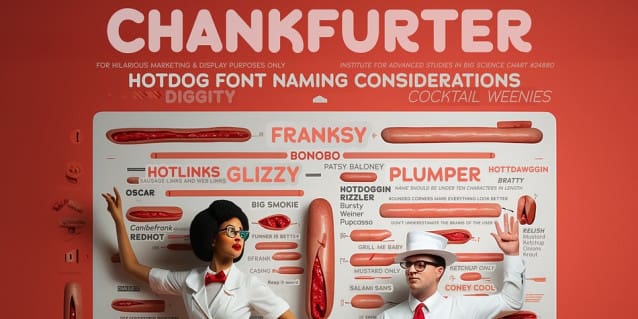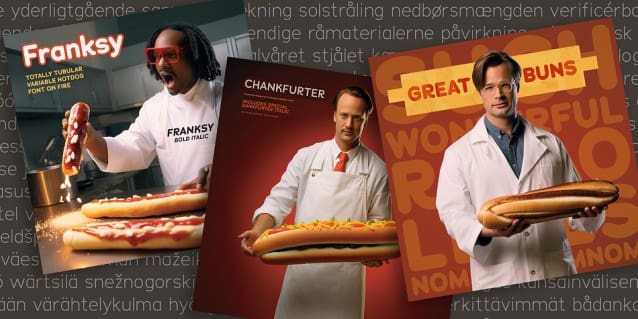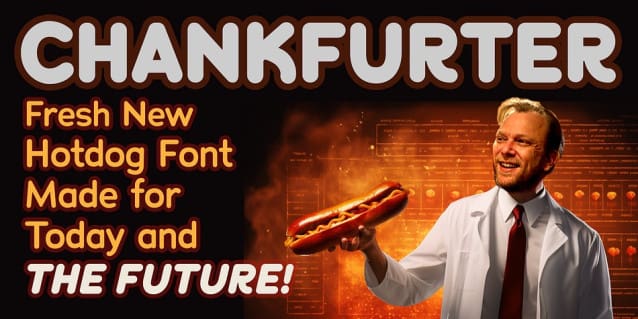
Chankfurter Font Family
Chankfurter Font Family is a smart and useful new hotdog font for the modern day. It’s clean and smooth with rounded letters and just a bit of charming wiggle and wobble to make it more jaunty and friendly. Look at that light-hearted R just kicking it, or the big swooshy tail of the Q. So fun! Available in multiple weights, this is one fun and approachable font that works well in body copy, headlines, packaging, website, logos — everything!